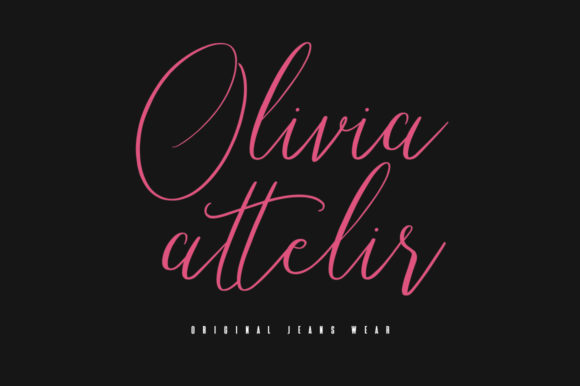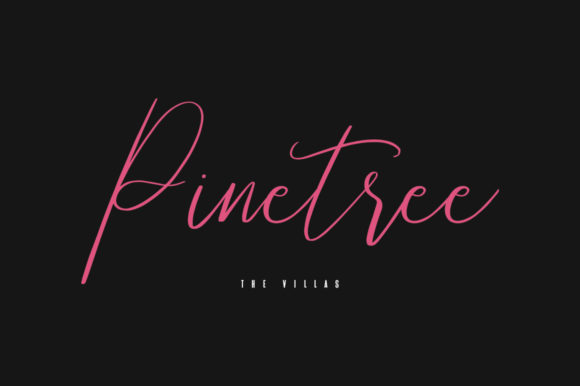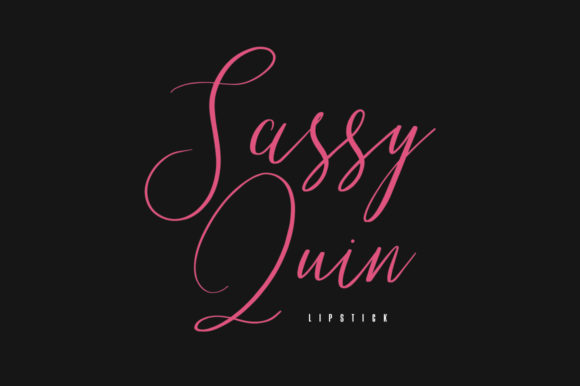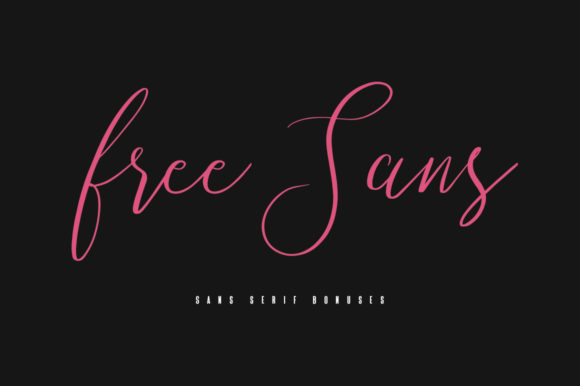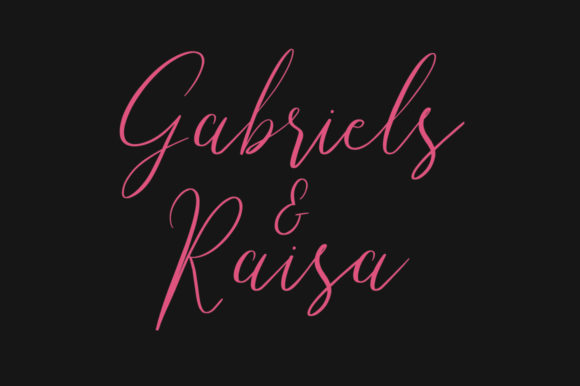
Introduction to Sheiral Font
As a designer, you know the thrill of brainstorming a new project and envisioning the perfect font to bring it to life. It’s that moment when everything falls into place, and your creative vision starts to take shape. For me, it was the discovery of the Sheiral Font that sparked a wave of inspiration, and I’m excited to share it with you.
With its elegant and flowing design, the Sheiral Font is a high-quality resource that adds a touch of sophistication to any creative project. Whether you’re crafting wedding invitations, designing business cards, or working on a logo, this font is sure to impress. And the best part? It’s available for a free download, making it an accessible design resource for designers of all levels.
So, what sets the Sheiral Font apart from the rest? Its unique combination of smooth lines, gorgeous glyphs, and stunning alternates creates a truly one-of-a-kind look that’s perfect for designers seeking a high-quality, elegant font to elevate their work.
Key Features of Sheiral Font
- Unique, elegant font style with a transparent background, perfect for adding a touch of sophistication to any design.
- Sheiral Font is available in a single weight, making it easy to use in a variety of design contexts.
- Sheiral Font is a great addition to any designer’s toolkit, offering a high-quality design resource for creative projects.
Honest Review: Sheiral Font
I recently stumbled upon the Sheiral Font, a free download that’s been making waves in the design community. As a designer, I’m always on the lookout for high-quality fonts that can elevate my creative projects.
Here’s what I like about the Sheiral Font:
- ✨ High-quality design: The font is well-crafted and visually appealing, making it perfect for a variety of design projects.
- ✨ Versatile: The font is highly versatile and can be used for both personal and commercial projects.
- ✨ Transparent background: The font has a transparent background, making it easy to combine with other design elements.
- ⚠️ Limited font variations: The font only comes in a few different styles, which may limit its use in certain projects.
- ⚠️ Not suitable for large-scale use: While the font is great for small projects, it may not be suitable for large-scale use due to its limited font variations.
Overall, I’m impressed with the Sheiral Font. It’s a great addition to any design resource and is perfect for designers looking for a high-quality, free font to use in their creative projects.
Sheiral Font
Sheiral Font is a free download that offers a high quality design resource for creative projects. With its unique style and versatility, this font can be used for a wide range of applications, from logos and branding to digital graphics and print materials.
Tips for Getting the Most Out of Sheiral Font
For the best results, use Sheiral Font on a transparent background to give your designs a clean and modern look. Experiment with different font sizes, colors, and combinations to find the perfect fit for your creative project.
Sheiral Font is perfect for logos, branding, digital graphics, print materials, and any other design project where a unique and high quality font is needed. Its versatility and style make it a valuable resource for designers and creatives of all levels.
Great Vibes is a beautiful script font perfect for adding a touch of elegance to your design. It’s a free download and can be used as a design resource for various creative projects. Great Vibes is comparable to Sheiral Font in terms of its high-quality feel, but it offers a more sophisticated and vintage look.